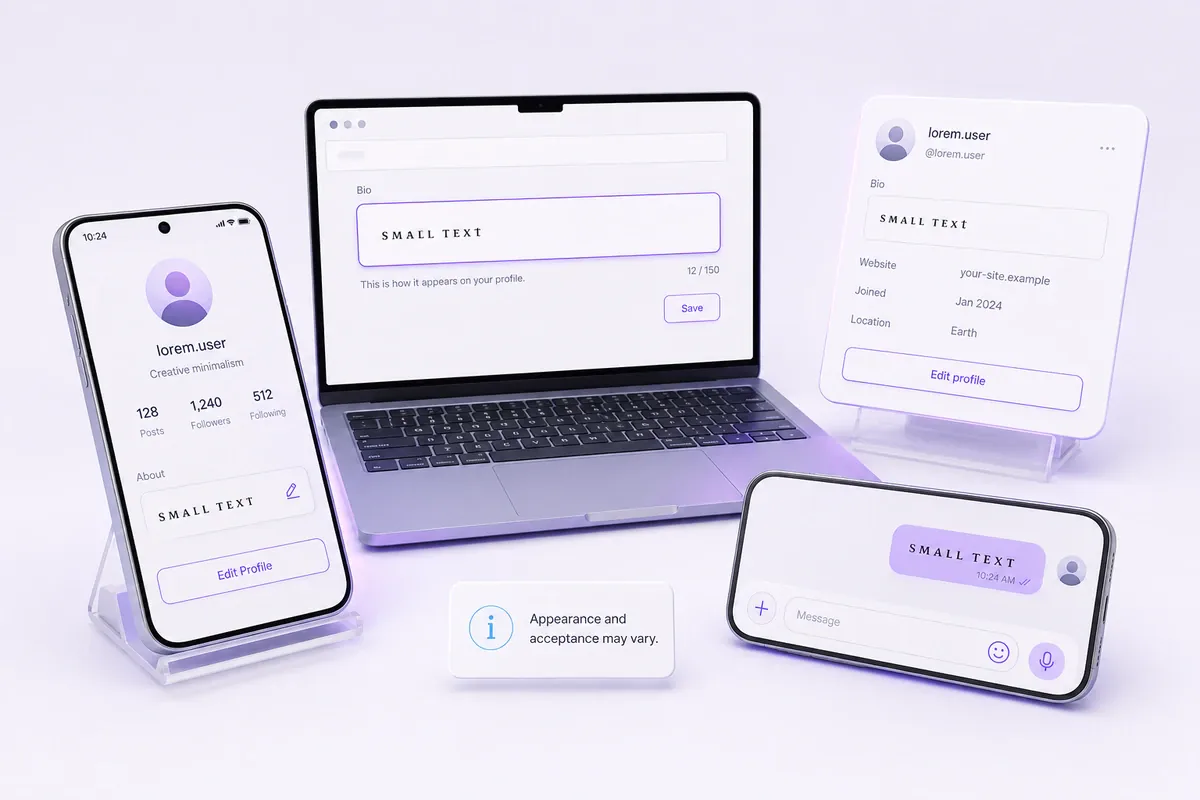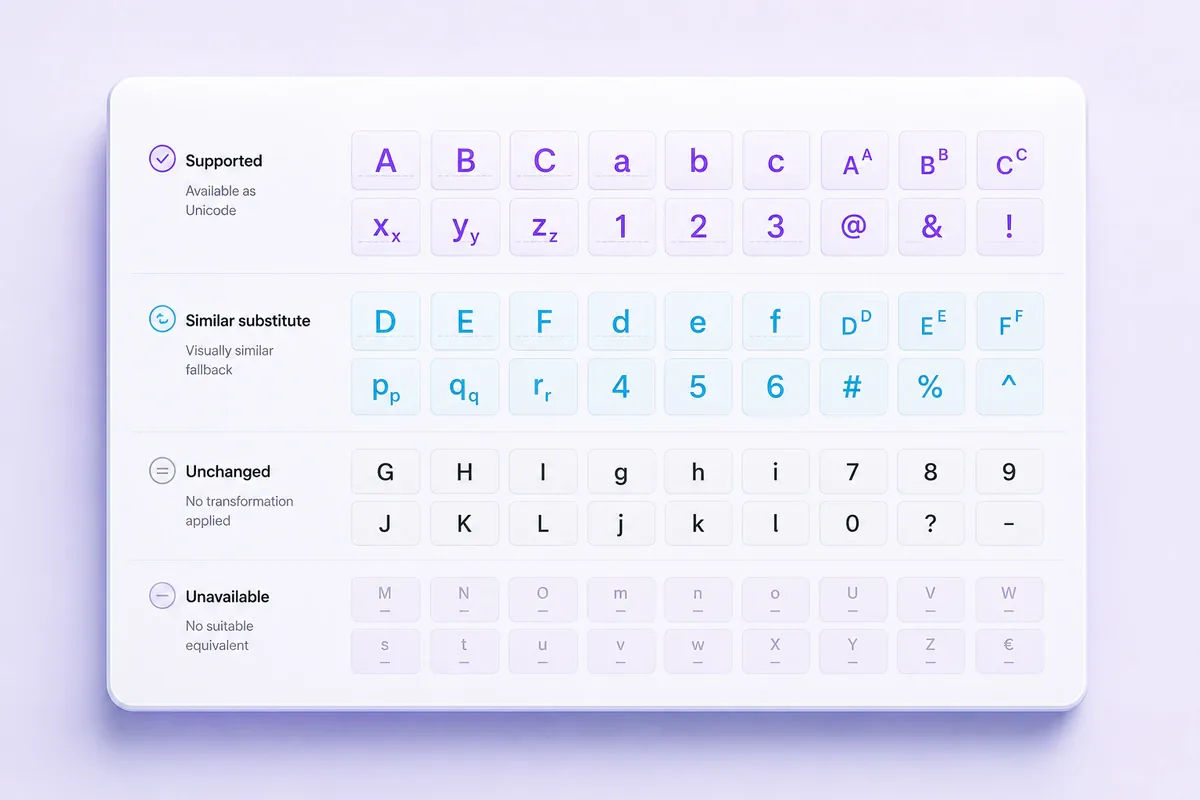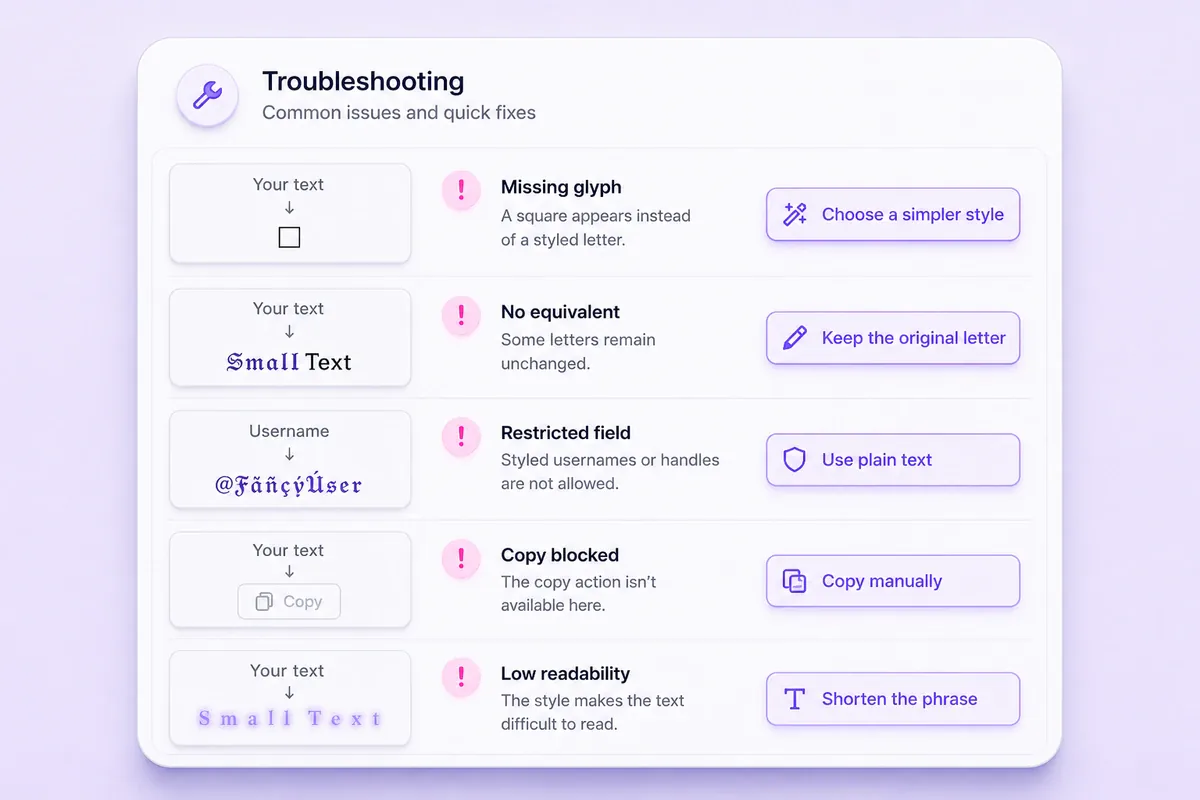
Small Caps
Create copyable small caps, superscript, and subscript Unicode for bios, usernames, captions, formulas, and notes.
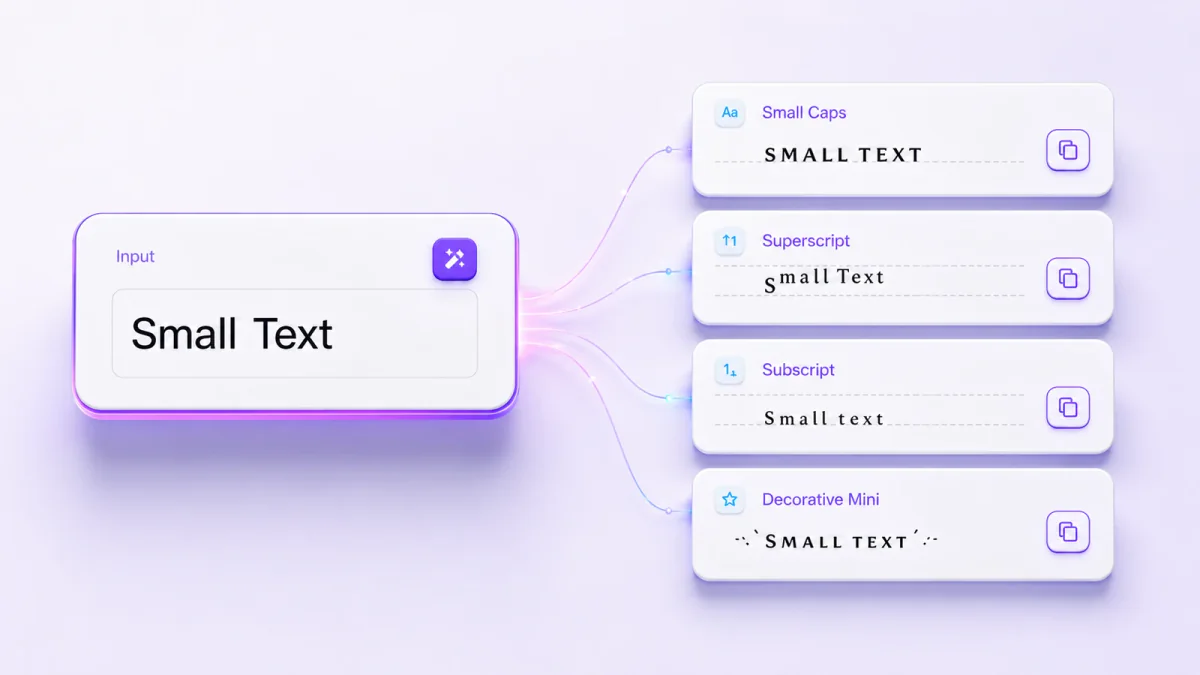
Use this small text generator to convert ordinary letters and numbers into available miniature Unicode styles, including small-cap-like, superscript, and subscript results. Type your text, compare the outputs, and copy the clearest version for a bio, display name, caption, exponent, footnote, or formula.
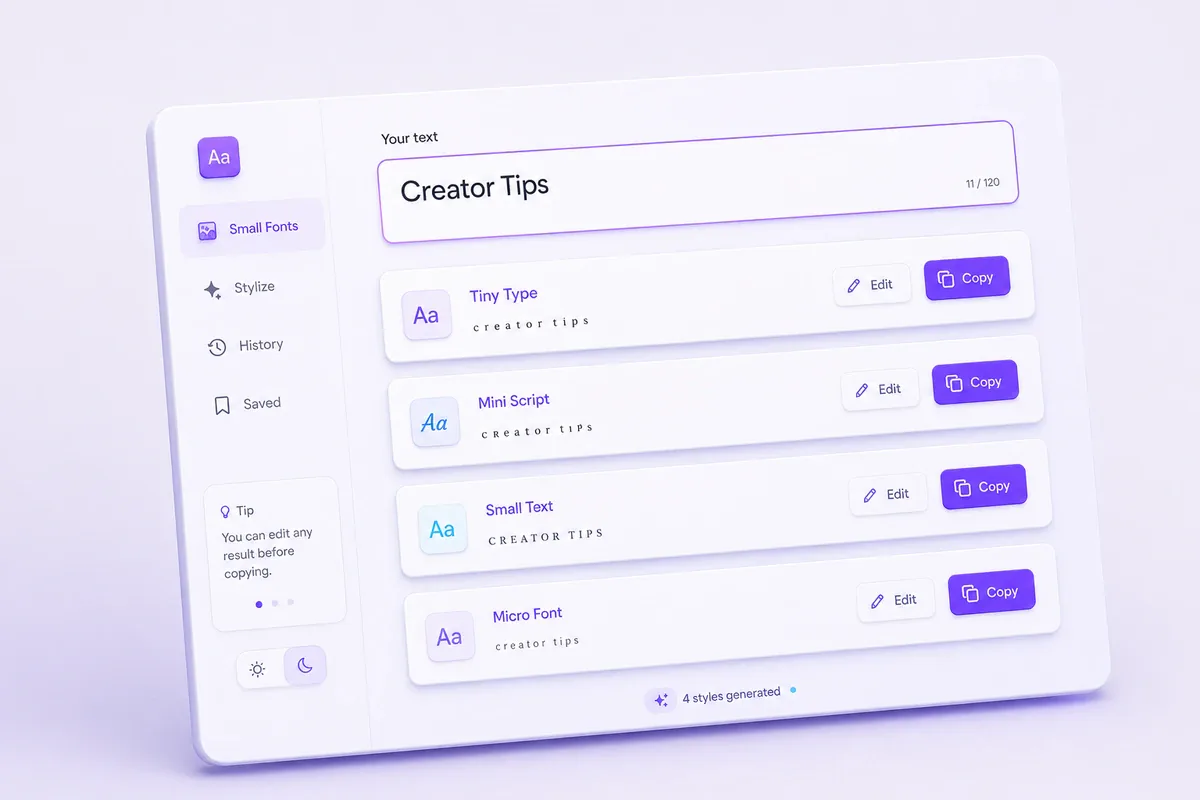
The generator replaces ordinary letters, numbers, or symbols with Unicode characters that have a smaller, raised, lowered, or compact appearance.
Enter your text once and review the available result cards. Each card presents a different character mapping or decorative style. You can edit a result when needed and use its copy control to place the selected characters on your clipboard.
The output is not an installed font, and it does not reduce the font-size setting inside another app. It consists of separate Unicode characters that can be pasted into fields that accept them.
For example, ordinary Text may produce results resembling:
ᴛᴇxᴛᵀᵉˣᵗₜₑₓₜThese examples describe broad categories. The exact styles shown by the tool depend on its current character mappings.
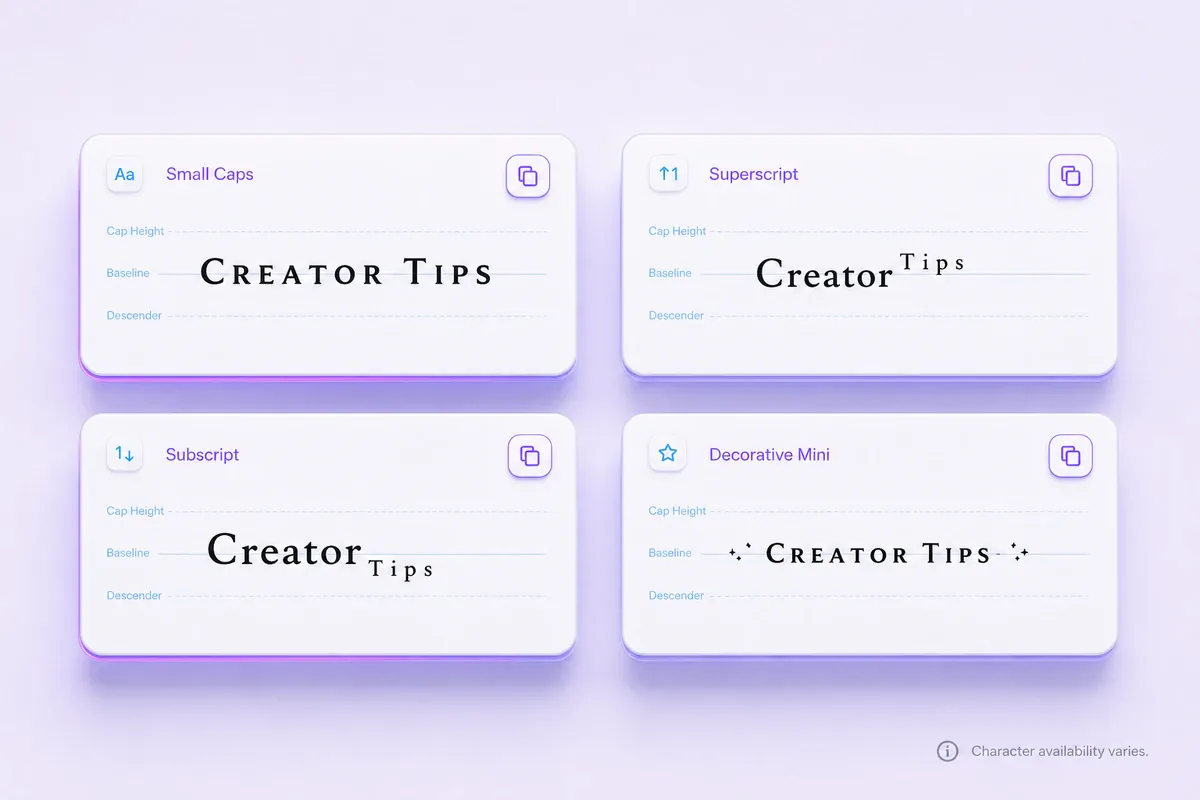
The tool may display several named results. You can compare them by readability, character coverage, and intended use.
| Style category | Example | Common use | Main limitation |
|---|---|---|---|
| Small-cap-like | ᴄʀᴇᴀᴛᴏʀ ᴛɪᴘꜱ | Short labels and display names | Some letters use visual substitutes |
| Superscript | ˢᵐᵃˡˡ ᵗᵉˣᵗ | Exponents, ordinals, and short notes | Full words can contain mixed shapes |
| Subscript | ₛₘₐₗₗ ₜₑₓₜ | Formulas and lowered number markers | Letter coverage is limited |
| Decorative miniature | Varies by result | Short social text and profile accents | Symbols can reduce readability |
Small-cap-like Unicode characters resemble miniature capital letters while remaining close to the normal baseline.
They are not the same as the built-in small-caps feature found in some professional fonts. A font’s true small caps are designed as part of that typeface, while the generator uses separate Unicode characters from different blocks.
Example: Creator Tips → ᴄʀᴇᴀᴛᴏʀ ᴛɪᴘꜱ
This style often works well for a short heading or display name because most characters remain close to the normal text line.
Superscript characters sit above the baseline. Raised numbers are commonly used for exponents, while certain letters can form ordinals or short annotations.
The generator styles everything you type, so it cannot raise only part of a word on its own. Type just the part that needs to be raised, copy the result, then place it next to the plain-text base you already typed.
Examples:
2, copy the superscript result ², and place it after a plain x → x²3, copy ³, and place it after a plain 10 → 10³st, copy ˢᵗ, and place it after a plain 1 → 1ˢᵗA full superscript word may contain letters with different shapes because Unicode does not provide one complete matching alphabet.
Subscript characters sit below the baseline. They are useful for numbers in formulas and for short variable labels where semantic formatting controls are unavailable.
Examples:
H2O → H₂OCO2 → CO₂Subscript numbers have broader coverage than subscript letters, so formulas often look more consistent than full lowered words.
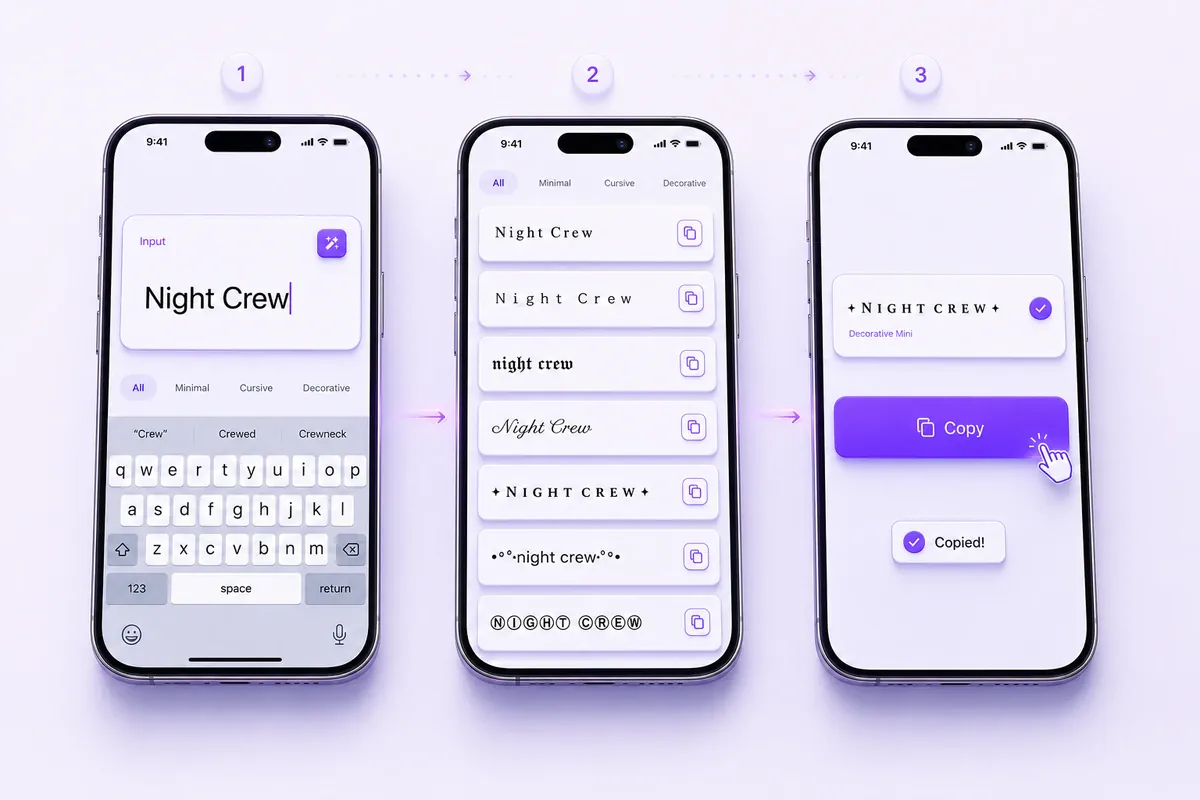
For example, enter Night Crew 2026. A small-cap-like result may suit a display name, while a raised result may work better for a short secondary label.
Do not choose a style only because it looks clear in the generator. Compact profile lists and small mobile screens can make detailed characters harder to distinguish.
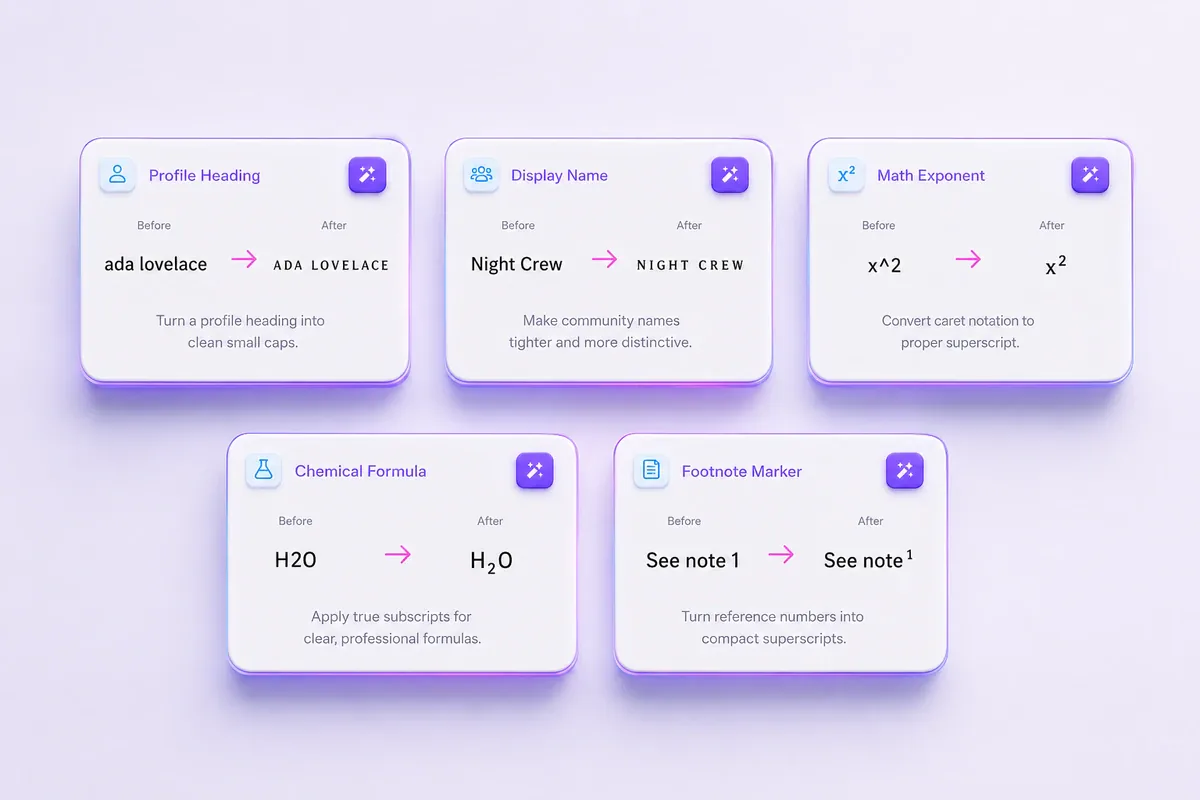
A photographer could style only the first line of a bio:
ᴘᴏʀᴛʀᴀɪᴛ ᴘʜᴏᴛᴏɢʀᴀᴘʜᴇʀ
The location, contact address, and booking instructions can remain in ordinary text. This gives the heading a distinct appearance without changing essential details.
Enter Night Crew, compare a few available outputs, and paste the most readable one into the display-name field.
Check how it appears in the member list rather than judging it only inside the tool. A result with added borders or symbols may take up more space than a simple small-cap-like style.
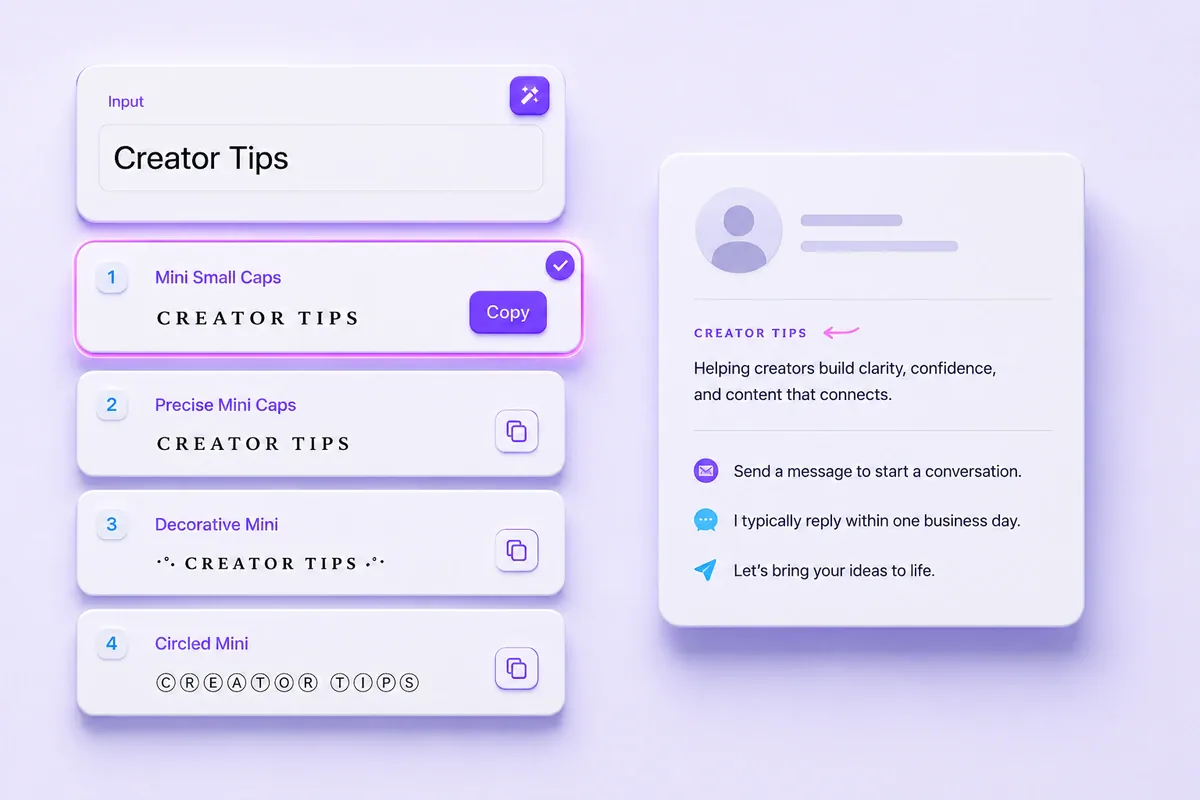
Use the small text generator to compare the available miniature Unicode styles and copy the clearest result. Small-cap-like characters often suit short labels, superscript characters suit raised numbers or notes, and subscript characters suit formulas.